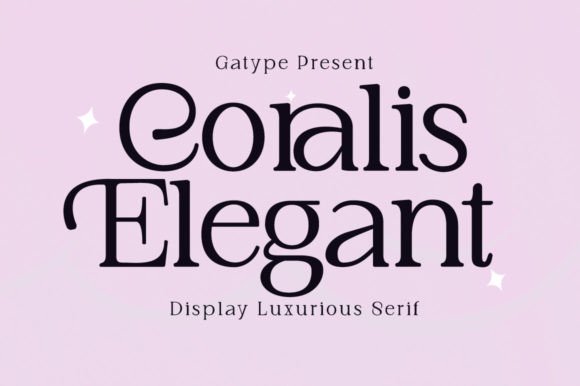
Coralis Elegant Font: Elevate Your Design with a Touch of Sophistication
In the world of typography, fonts play a crucial role in conveying the tone and personality of a brand or design. Among the numerous font styles available, Coralis Elegant has emerged as a popular choice for designers seeking a serif font that exudes a creative atmosphere and perfect shape, inspired by a modern and elegant look. In this article, we’ll delve into the features, benefits, and usage of Coralis Elegant Font, exploring how it can elevate your design to new heights.
What is Coralis Elegant Font?
Coralis Elegant is a serif font designed to bring a touch of sophistication and elegance to any design project. Its creative atmosphere and perfect shape are inspired by modern and elegant design trends, making it an ideal choice for designers seeking a font that can add a level of refinement to their work.
With its unique blend of classic and modern elements, Coralis Elegant Font has become a popular choice for various design applications, including branding, advertising, packaging, and digital media. Its versatility and aesthetic appeal have made it a favorite among designers seeking to create visually stunning and effective designs.
Key Features of Coralis Elegant Font
- Serif Font: Coralis Elegant is a serif font, characterized by small lines or flourishes at the ends of the letters. This feature adds a level of sophistication and elegance to the font.
- Creative Atmosphere: The font’s design is inspired by a creative atmosphere, making it perfect for designers seeking to add a touch of innovation and originality to their work.
- Perfect Shape: Coralis Elegant Font boasts a perfect shape, ensuring that the letters are well-proportioned and visually appealing.
- Modern and Elegant Look: The font’s design is inspired by modern and elegant trends, making it an ideal choice for designers seeking to create contemporary and refined designs.
Benefits of Using Coralis Elegant Font
Coralis Elegant Font offers numerous benefits to designers and brands, including:
- Enhanced Visual Appeal: The font’s elegant design and perfect shape make it visually appealing, adding a level of sophistication to any design project.
- Increased Legibility: Coralis Elegant Font is designed to be highly legible, ensuring that the text is easy to read and understand.
- Versatility: The font is suitable for various design applications, including branding, advertising, packaging, and digital media.
- Unique Identity: Coralis Elegant Font can help brands establish a unique identity and differentiate themselves from competitors.
How to Use Coralis Elegant Font
Coralis Elegant Font can be used in various design projects, including:
- Branding: Use Coralis Elegant Font to create a unique and sophisticated brand identity.
- Advertising: The font is perfect for creating eye-catching and effective advertisements.
- Packaging: Coralis Elegant Font can add a touch of elegance to packaging design.
- Digital Media: Use the font to create visually stunning digital media, including website headers, social media graphics, and more.
- Use Colors Wisely: Choose colors that complement the font and add to the overall aesthetic appeal of the design.
| Font Name | Coralis Elegant Font |
| Author | gatype |
Coralis Elegant Font is a sophisticated serif font that can elevate any design project to new heights. Its creative atmosphere, perfect shape, and modern and elegant look make it an ideal choice for designers seeking to add a touch of refinement to their work. With its versatility, legibility, and aesthetic appeal, Coralis Elegant Font is a valuable addition to any designer’s toolkit.